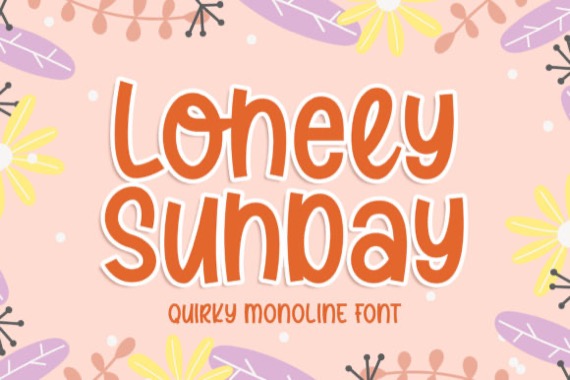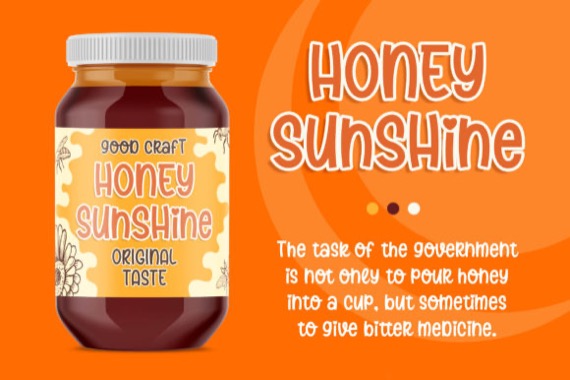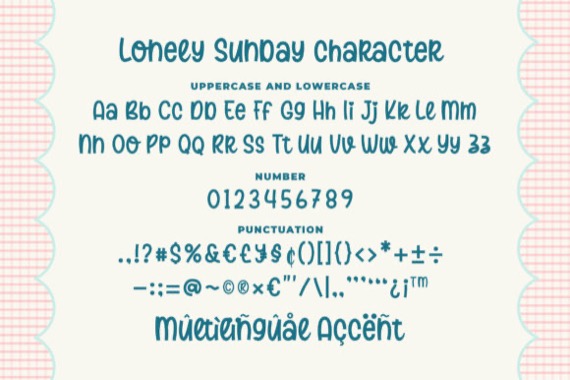
Lonely Sunday is a lovely and friendly groovy script font that was created and released by Blankids Studio along with stylish, adaptable, and casual looks. With a playful feel, get inspired by it modern charm!
Lonely Sunday Retro Display Font